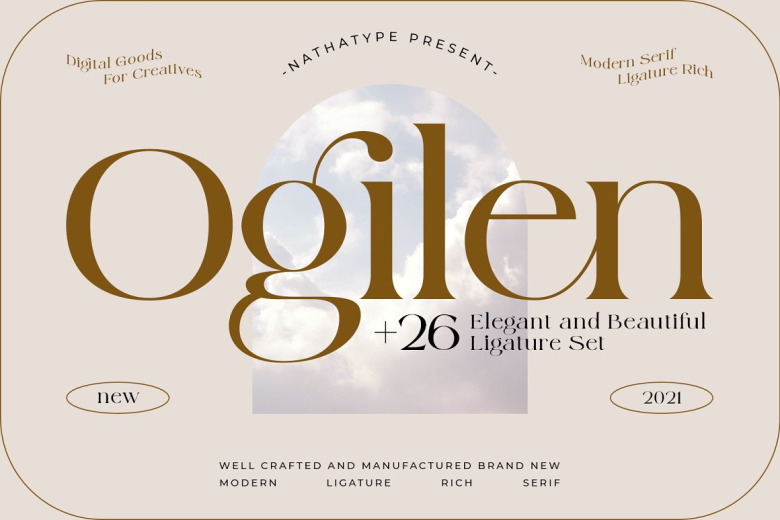
Ogilen Font
Ogilen is a luxury and classic serif font. This font will make all your work look Professional no matter what you are hoping to give look and feel more trendy. Ogilen suit for logo, headings, branding, magazine, cover album, book cover, movie, apparel design, quotes, invitations, flyer, poster, greeting cards, product packaging, printed quotes, cover album, etc.
Ogilen Serif Font